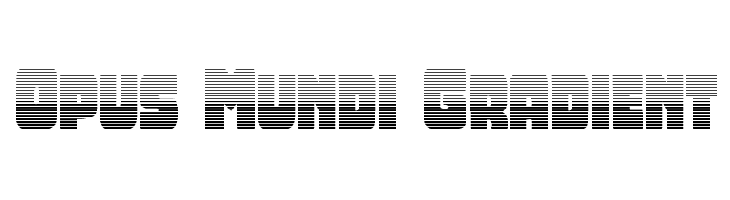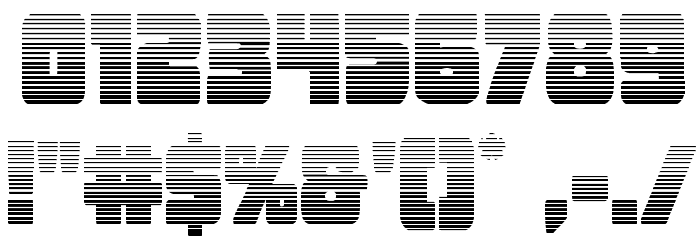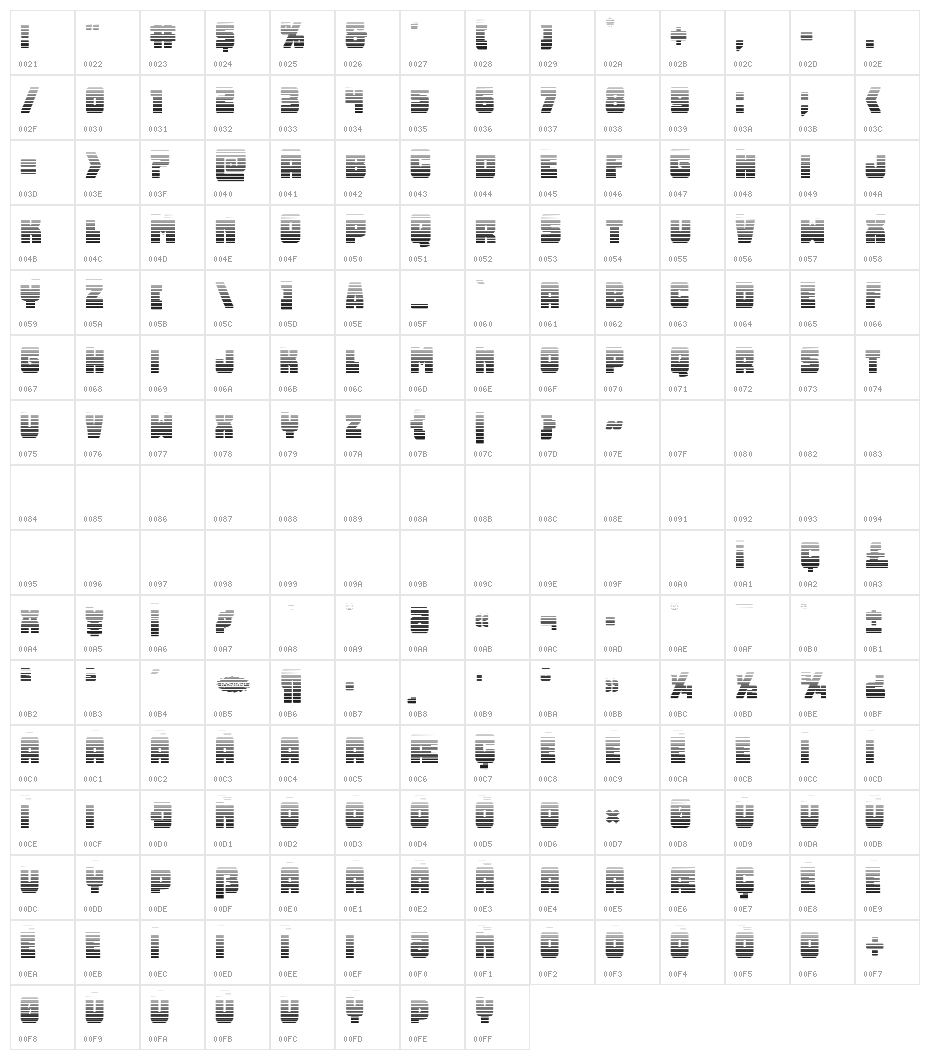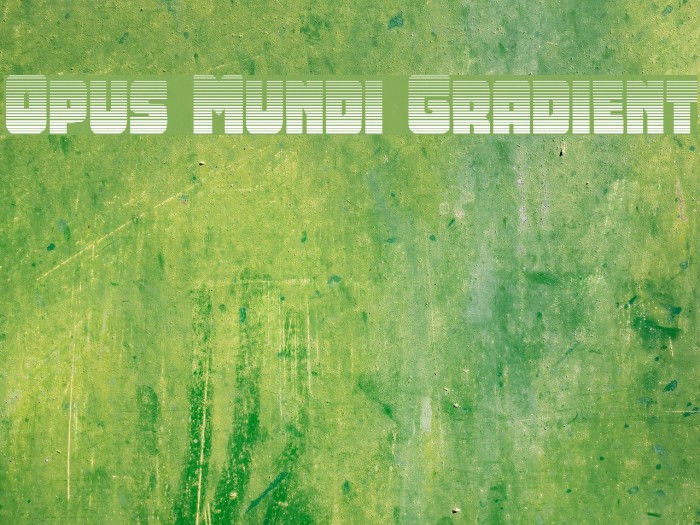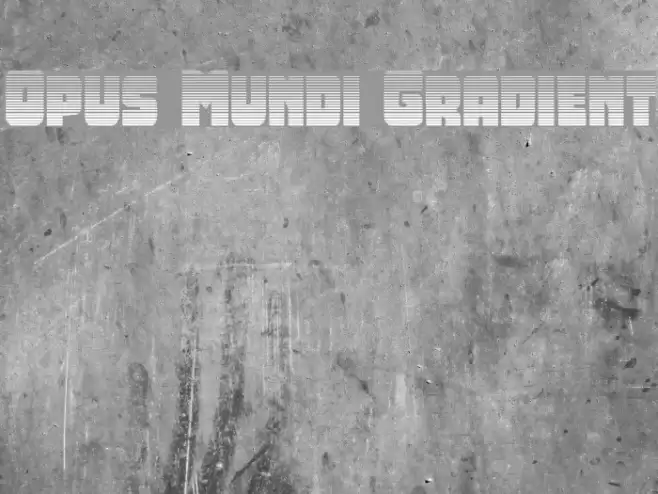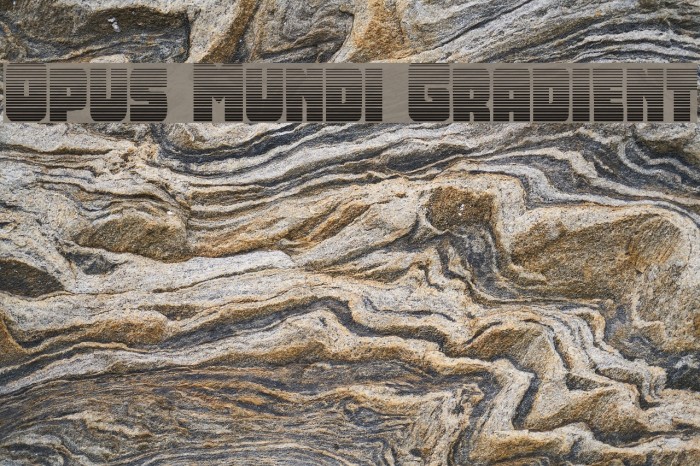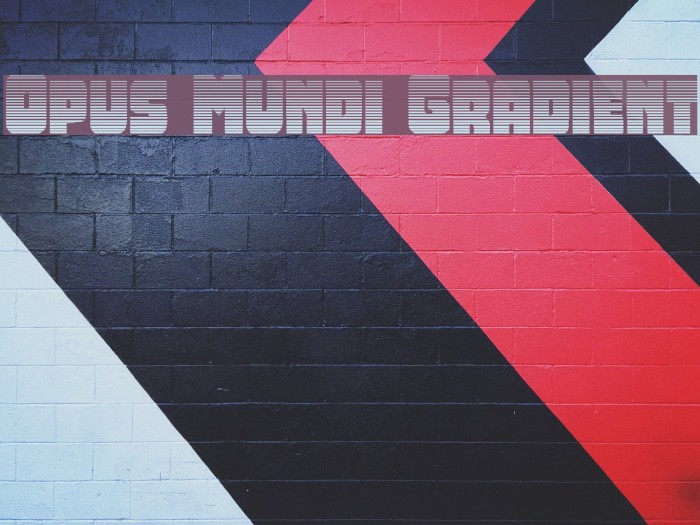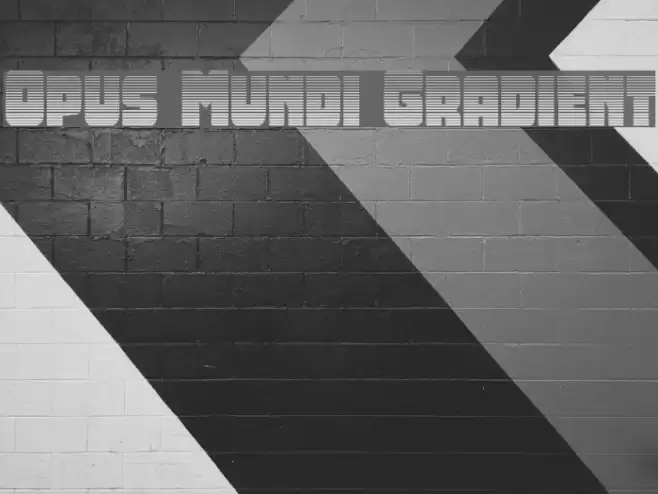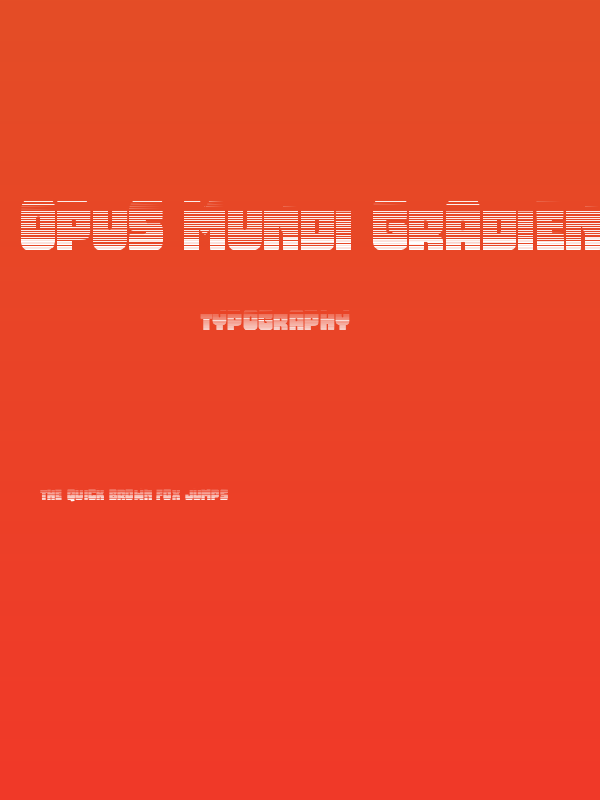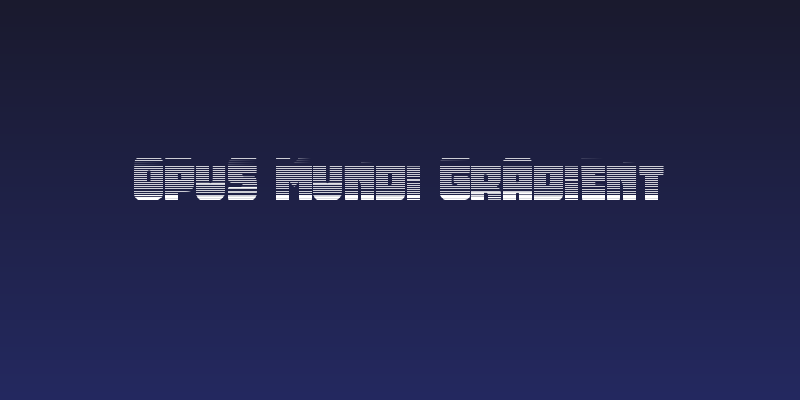
Opus Mundi Gradient Font
Opus Mundi Gradient Description
This font features a bold, decorative style with a unique gradient effect created by horizontal lines that vary in thickness. The letters are uppercase, with a strong, blocky appearance that gives them a sense of weight and presence. The gradient effect adds a dynamic and modern touch, making the font stand out. The characters are evenly spaced, ensuring readability despite the intricate design. The numbers and special characters follow the same stylistic approach, maintaining consistency across the entire set.
| Proposed Projects | Ideal for eye-catching posters, modern branding, and innovative logo designs. |